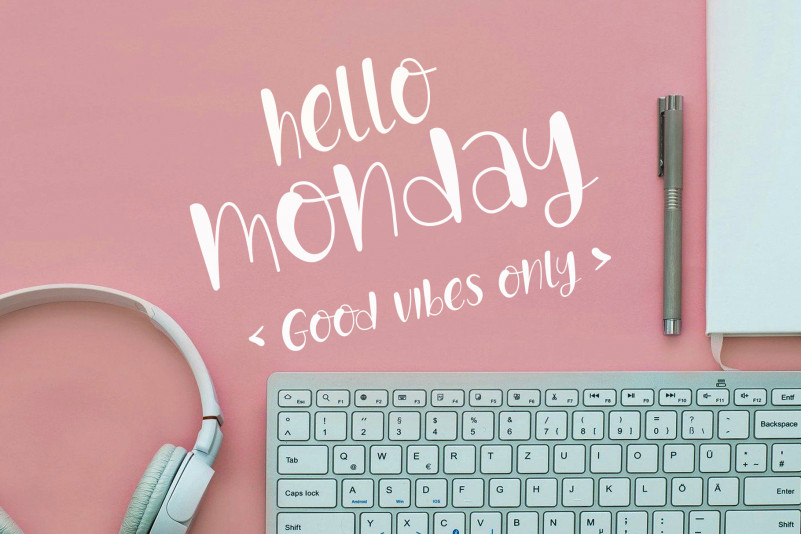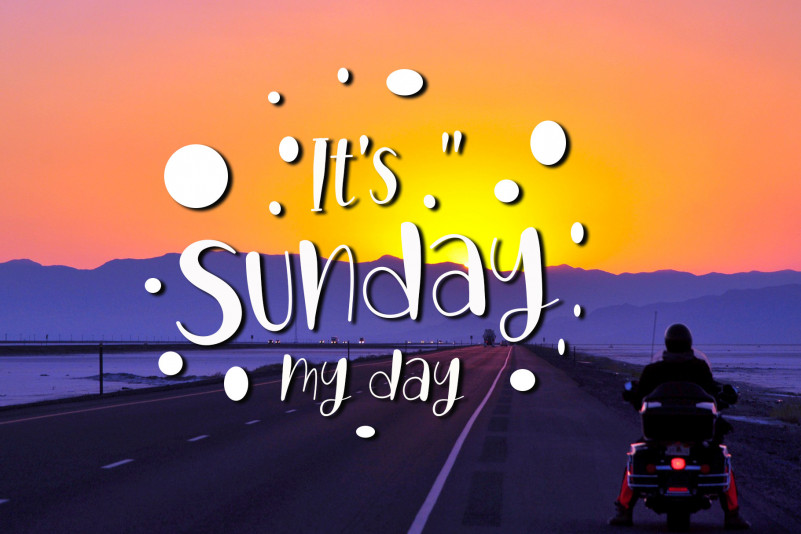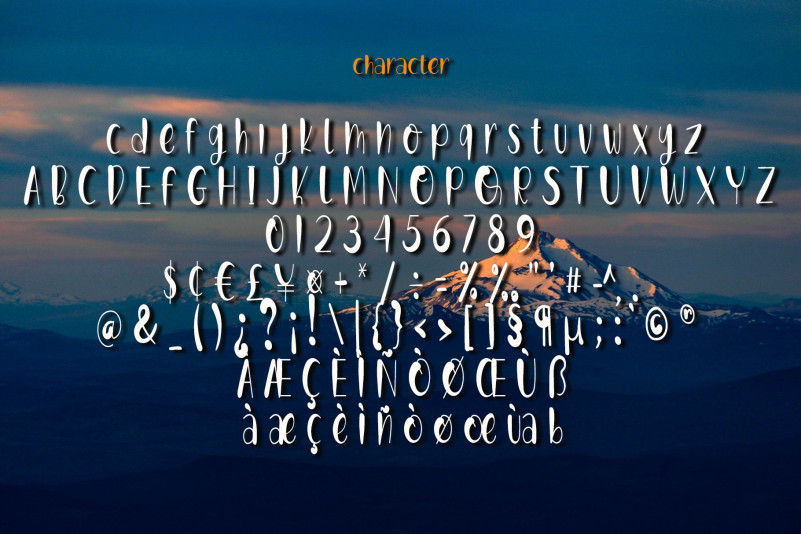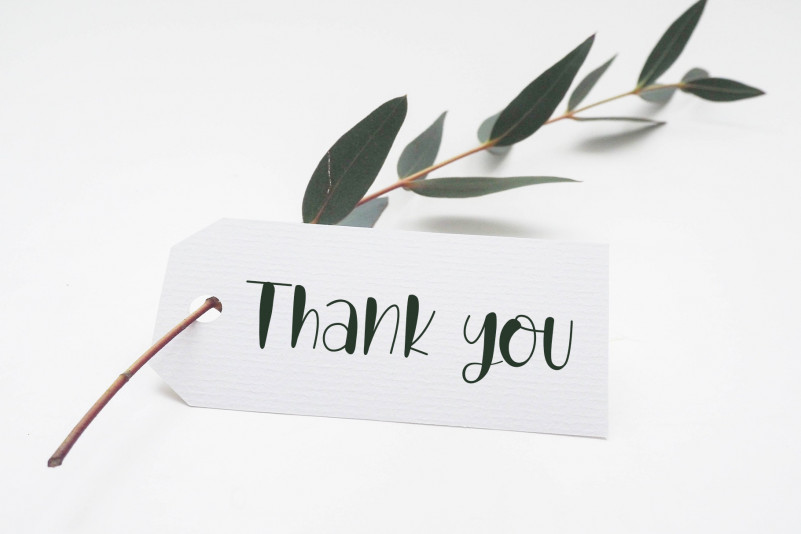
Babymom Font
Babymom Script Font
This is a whimsical script font with a relaxed theme, featuring a lovely style. No matter the topic, this font will be an incredibly asset to your fonts’ library, as it has the potential to elevate any creation.